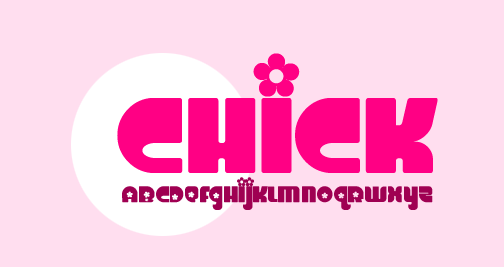
Chick
Girls, gurls, grrls! A sassy little font especially for you! This font would be good for a Tiger Beat article, baby shower invites for Posh Spice, or an artrock poster for Cibo Matto. Font power!!